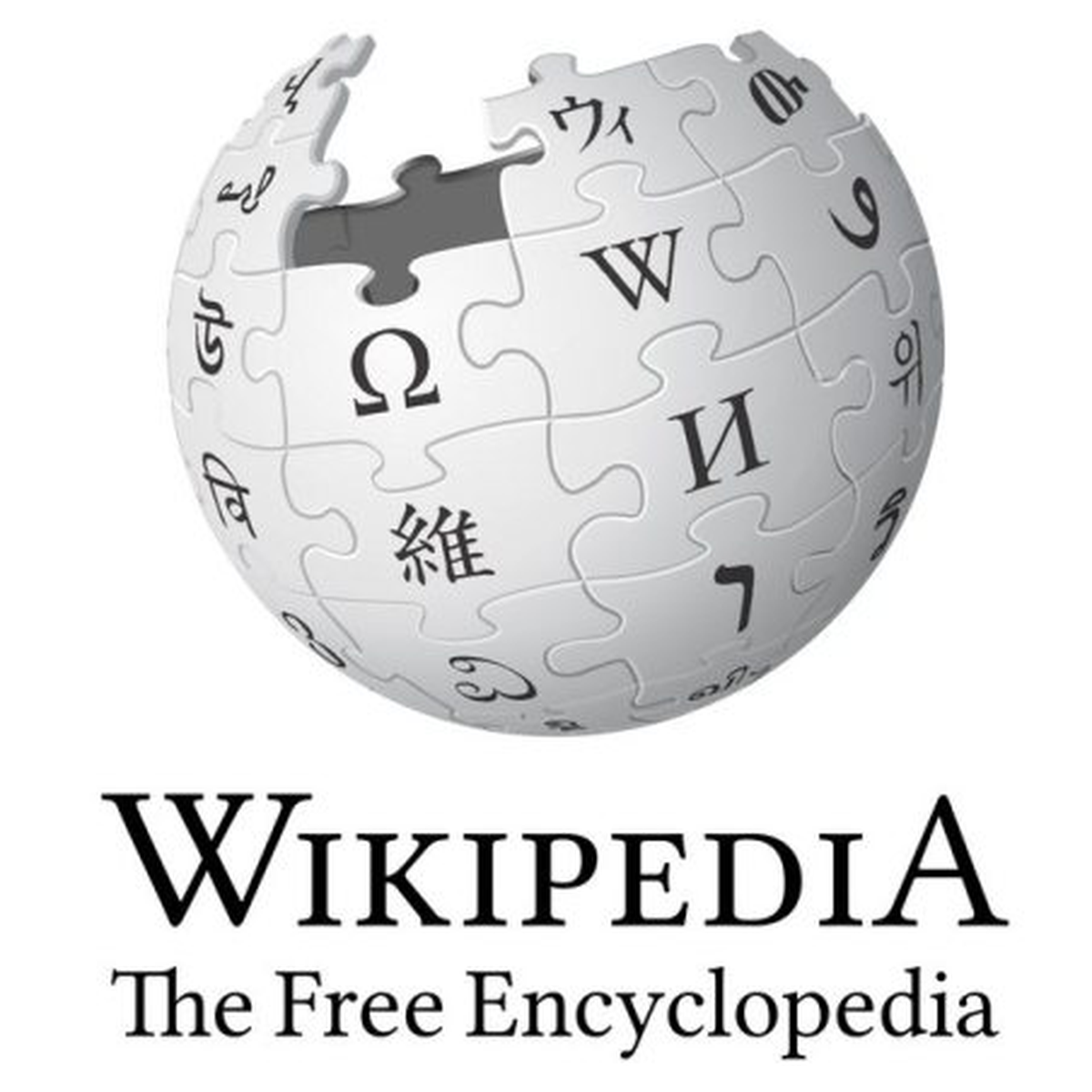
Wikipedia font preview
About Wikipedia
Wikipedia is the multilingual free online encyclopaedia launched in 2001 by Jimmy Wales and Larry Sanger, and run by the non-profit Wikimedia Foundation. It has grown into one of the most visited sites on the web, with millions of volunteer-edited articles in over 300 languages. The interface and reading typography lean on a clean humanist sans at a light weight, the kind of unobtrusive screen face that lets long-form reference content stay readable on any device.
Wikipedia's visual identity has stayed remarkably stable across two decades. The puzzle-globe mark sits over a wordmark whose serif and sans-serif cuts have evolved through Hoefler Text, Linux Libertine, and other open licensed faces over the years. The body reading face across the site, however, has settled on a light humanist sans that favours legibility and quiet authority over personality, the visual register this font recreates.
What font does Wikipedia use?
Wikipedia uses Wikipedia's reading typography leans on light humanist sans-serifs in the Helvetica Neue and Arial Light family across web and mobile. The font on this page is Lipi's original generated lookalike of that light, neutral humanist sans, packaged with a commercial license.
Where this style works
Light humanist sans-serifs are at home in long-form reading apps, documentation sites, knowledge-base and wiki interfaces, edtech and research products, journalism and reference brands, and any layout where the type needs to disappear so the words can do the work. The light weight reads comfortably at small sizes on screens, and the neutral proportions pair cleanly with almost any serif accent.
What font does Wikipedia use?
Wikipedia's reading typography across desktop and mobile uses system humanist sans-serifs, broadly in the Helvetica Neue, Arial, and Liberation Sans family at a light weight. The font on this page is Lipi's generated lookalike of that clean reference-grade humanist sans.
Is the Wikipedia font free?
What fonts are similar to the Wikipedia reading style?
Comparable light humanist sans-serifs include Helvetica Neue Light, Arial Light, Liberation Sans Light, Roboto Light, and IBM Plex Sans Light. Free options via Google Fonts include Roboto Light, Inter Light, and Source Sans Pro Light.
Wikipedia Font: Nova Crucible